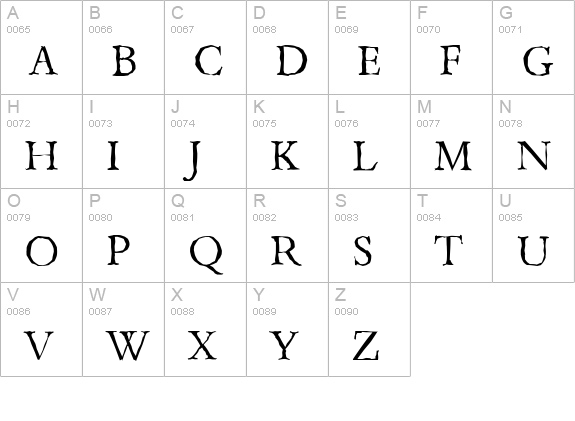
BernsteinAntique-Light-Regular Font Details
BernsteinAntique-Light-Regular is a refined, elegant variant in the BernsteinAntique typeface family \xE2\x80\x94 well suited to elegant body text, refined sub-headings, and luxury branding.
Bernstein Antique Light Regular font exudes a timeless elegance with its delicate strokes and vintage charm. This classic serif typeface is perfect for adding a touch of sophistication to any project, whether it be a formal invitation, elegant branding, or stylish editorial design. The font features graceful letterforms that harken back to a bygone era, yet remain versatile enough to be used in contemporary designs. Its light weight gives it an airy and refined appearance, making it ideal for creating a sense of sophistication and refinement. What's even better is that Bernstein Antique Light Regular font is completely free to download at FontsMarket.com. This means you can easily add this beautiful typeface to your font collection without any cost. Don't miss out on the opportunity to enhance your designs with the timeless beauty of Bernstein Antique Light Regular font.